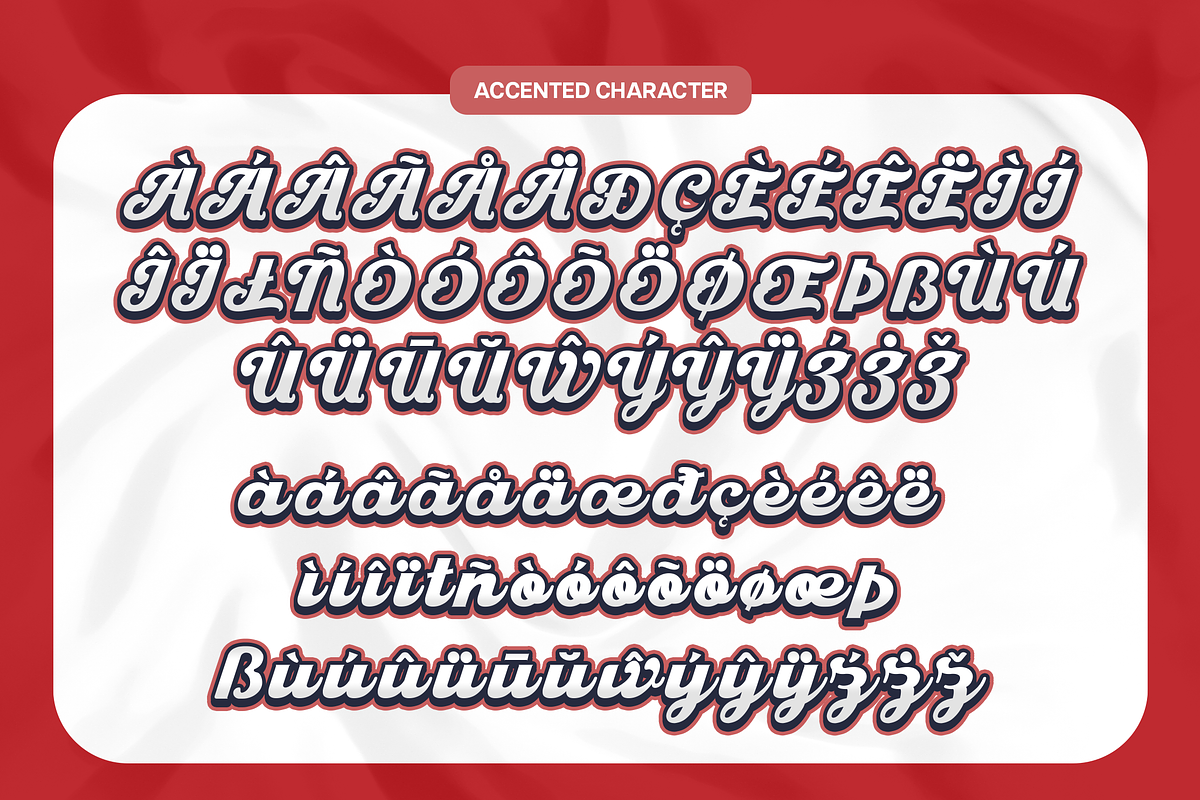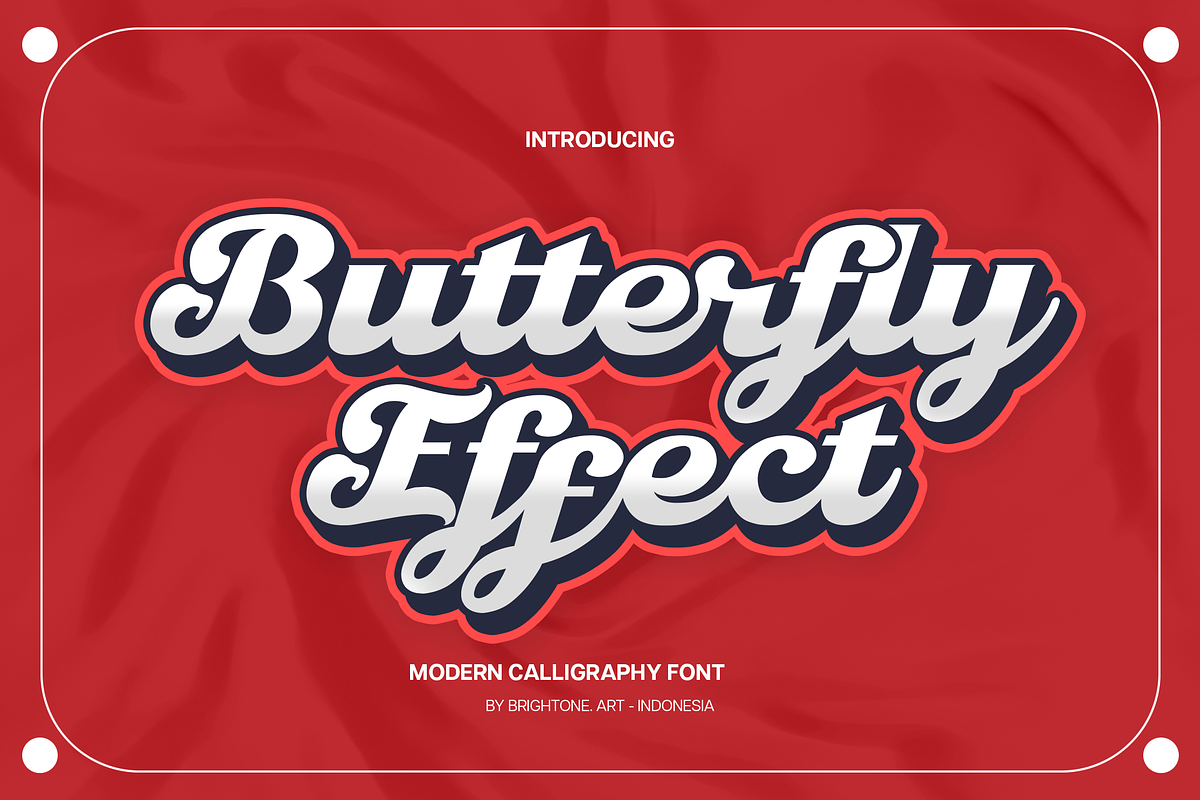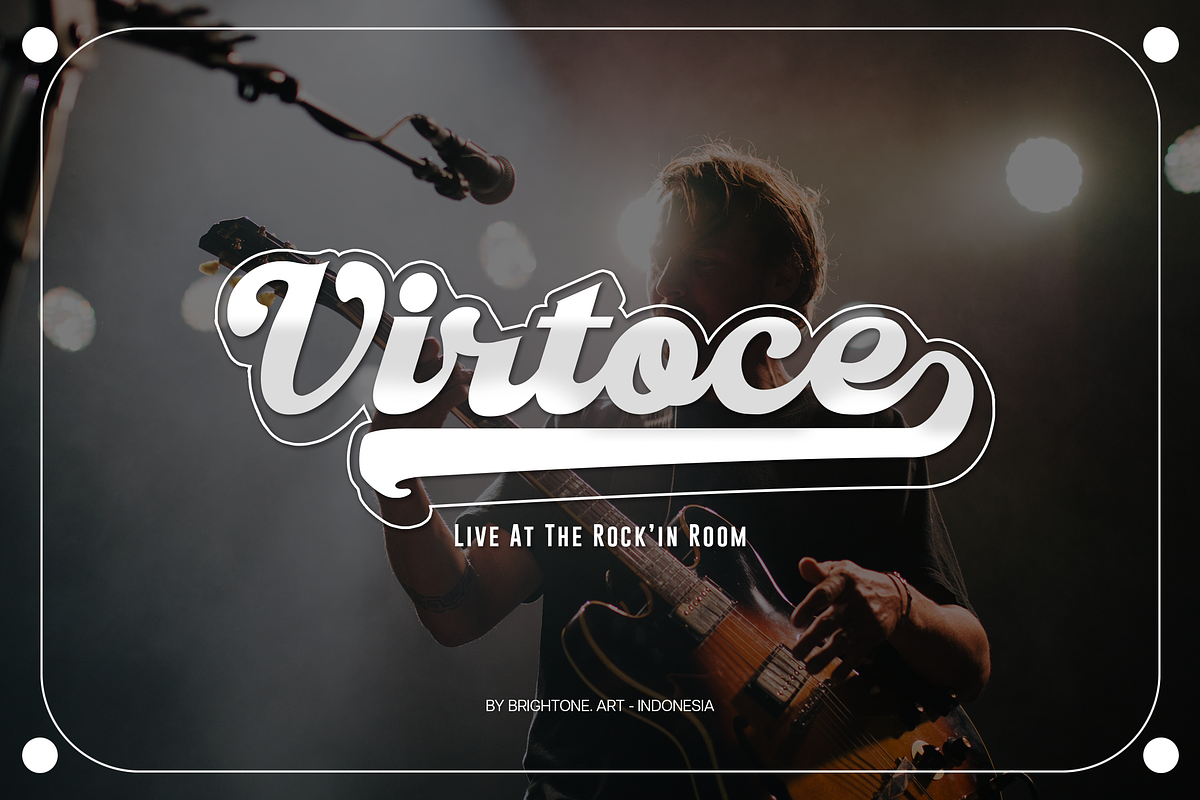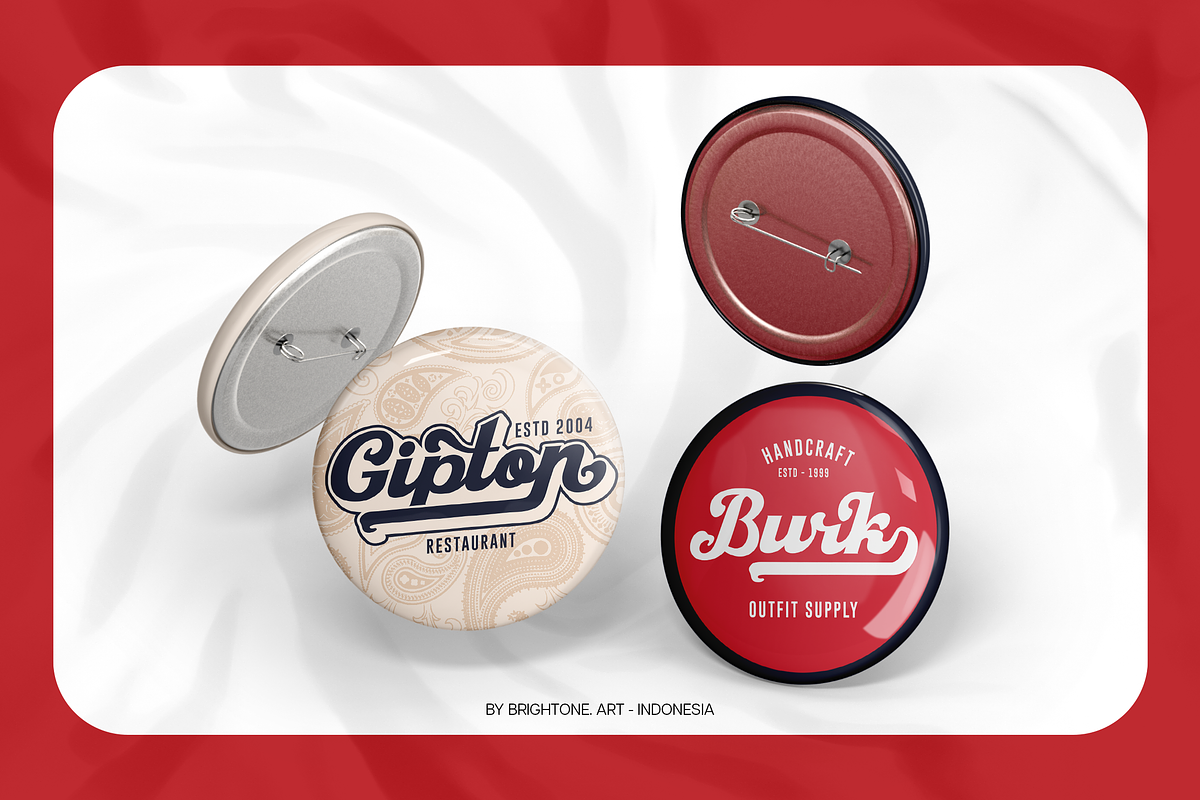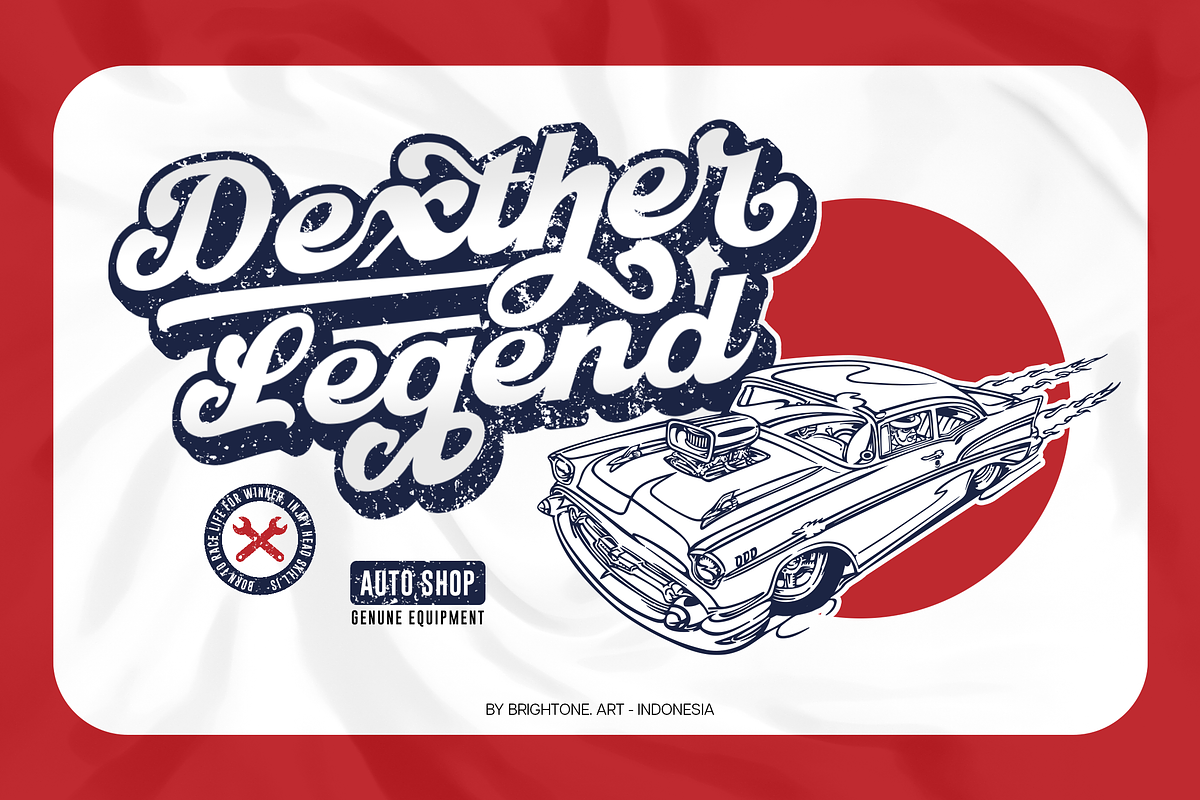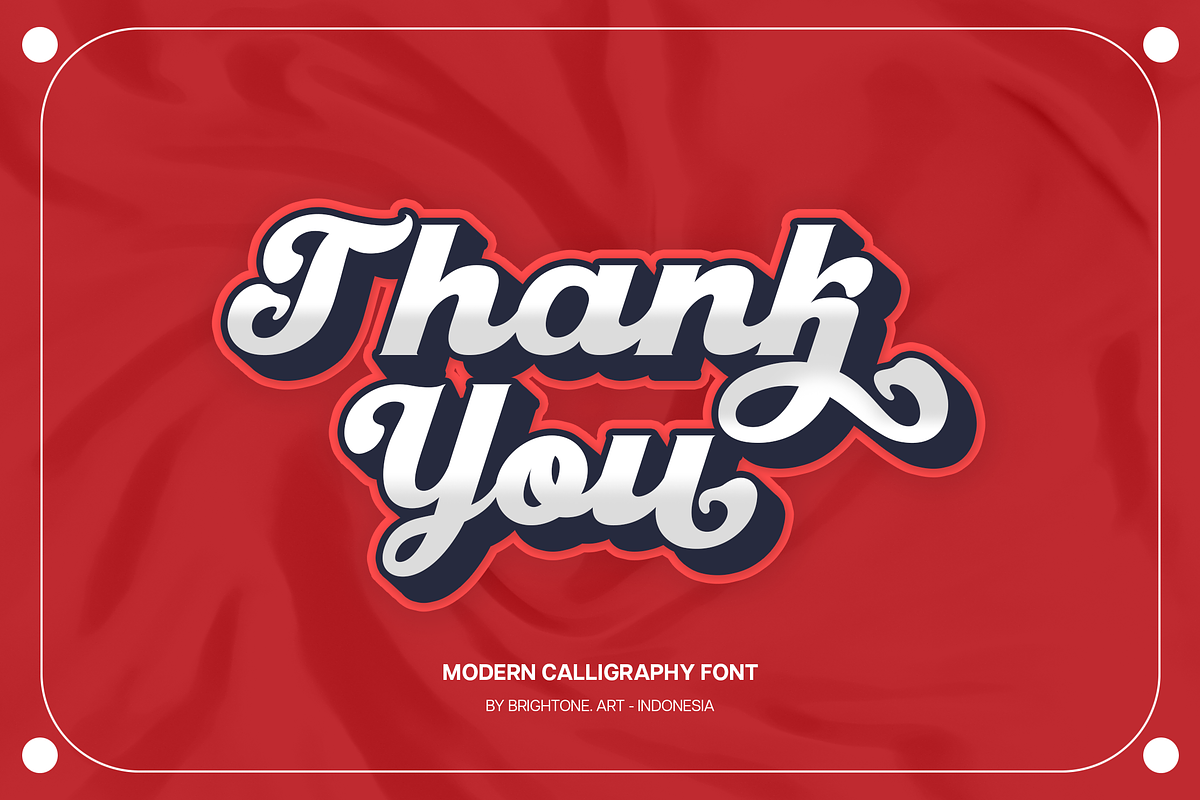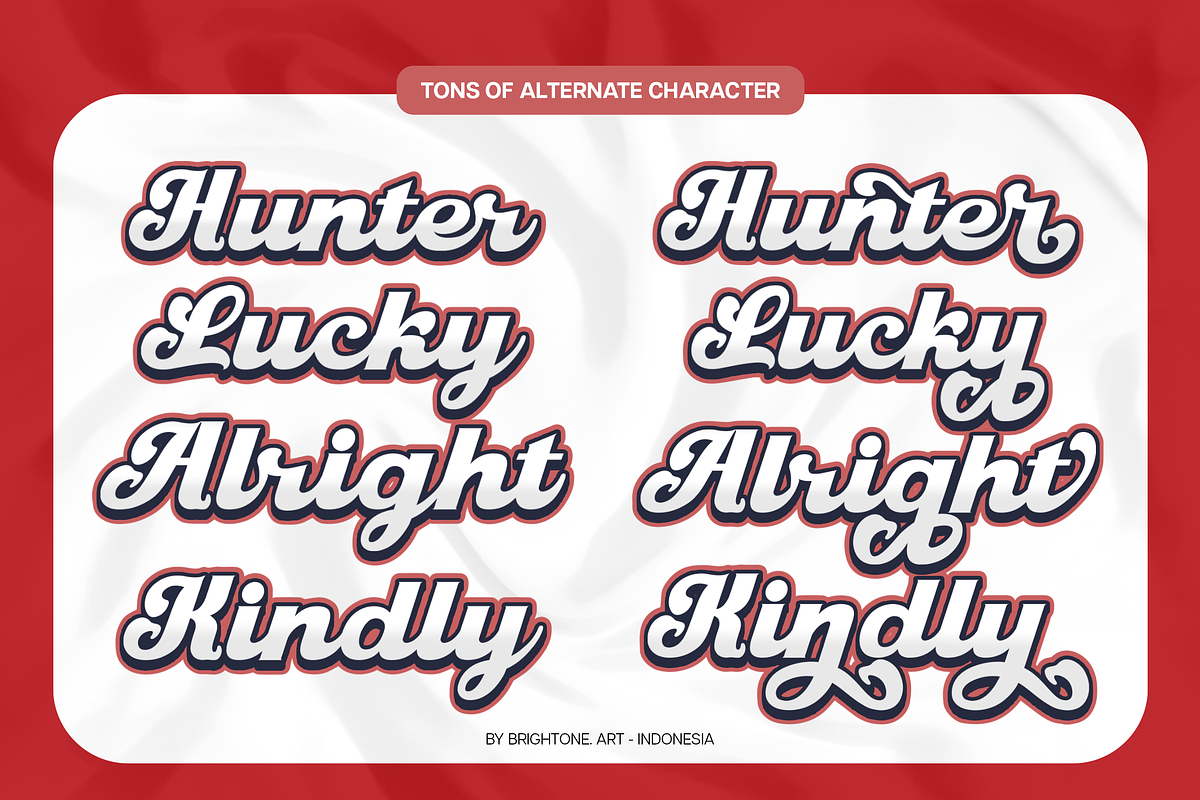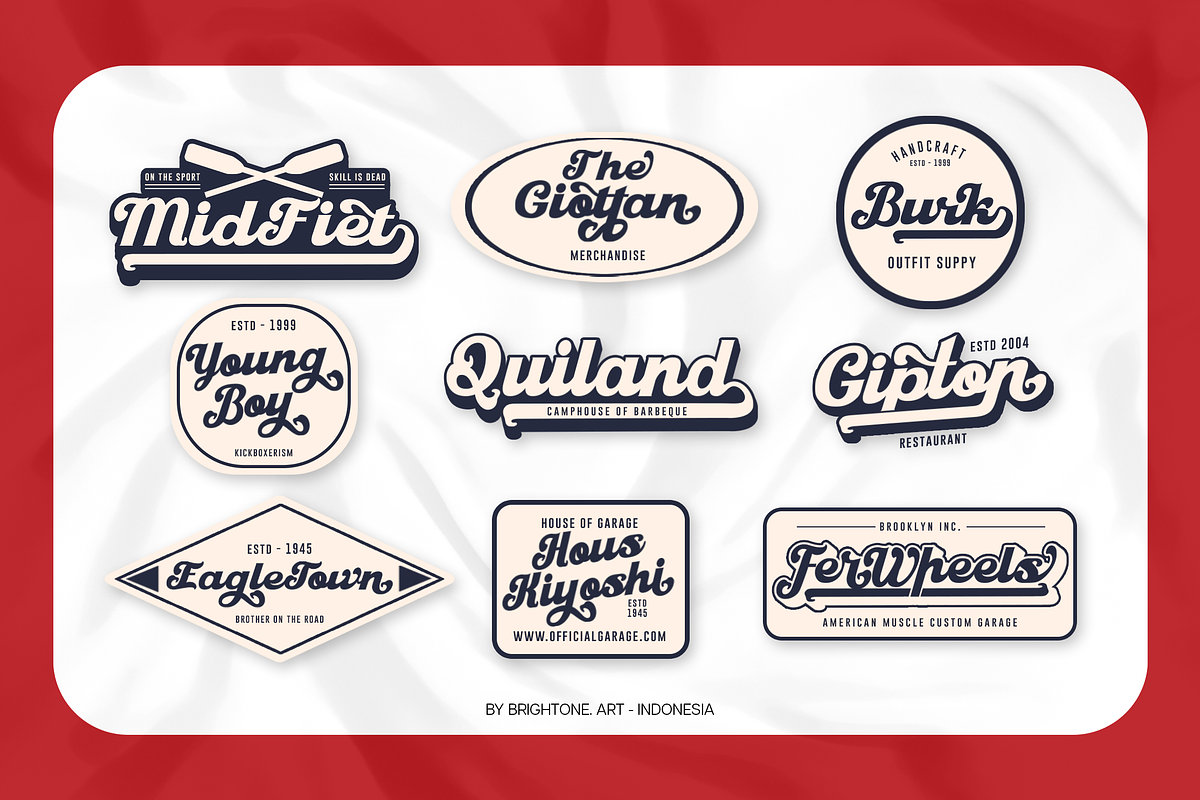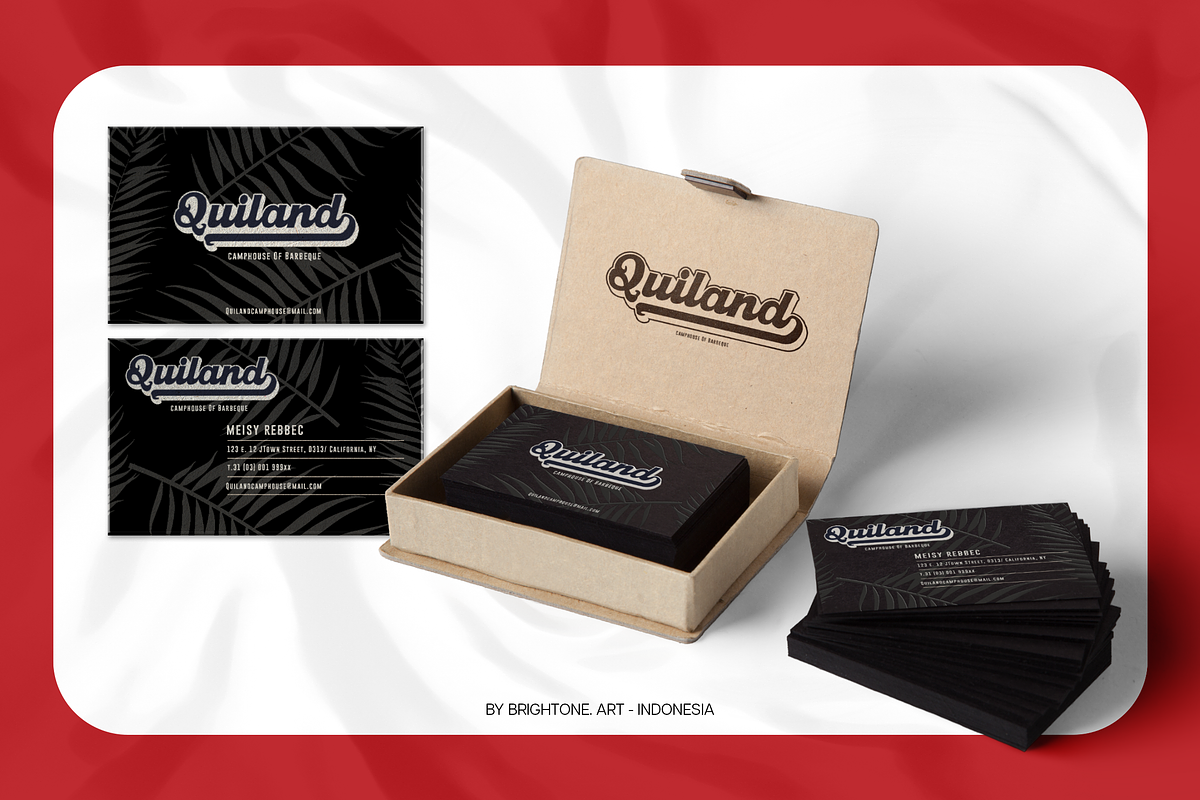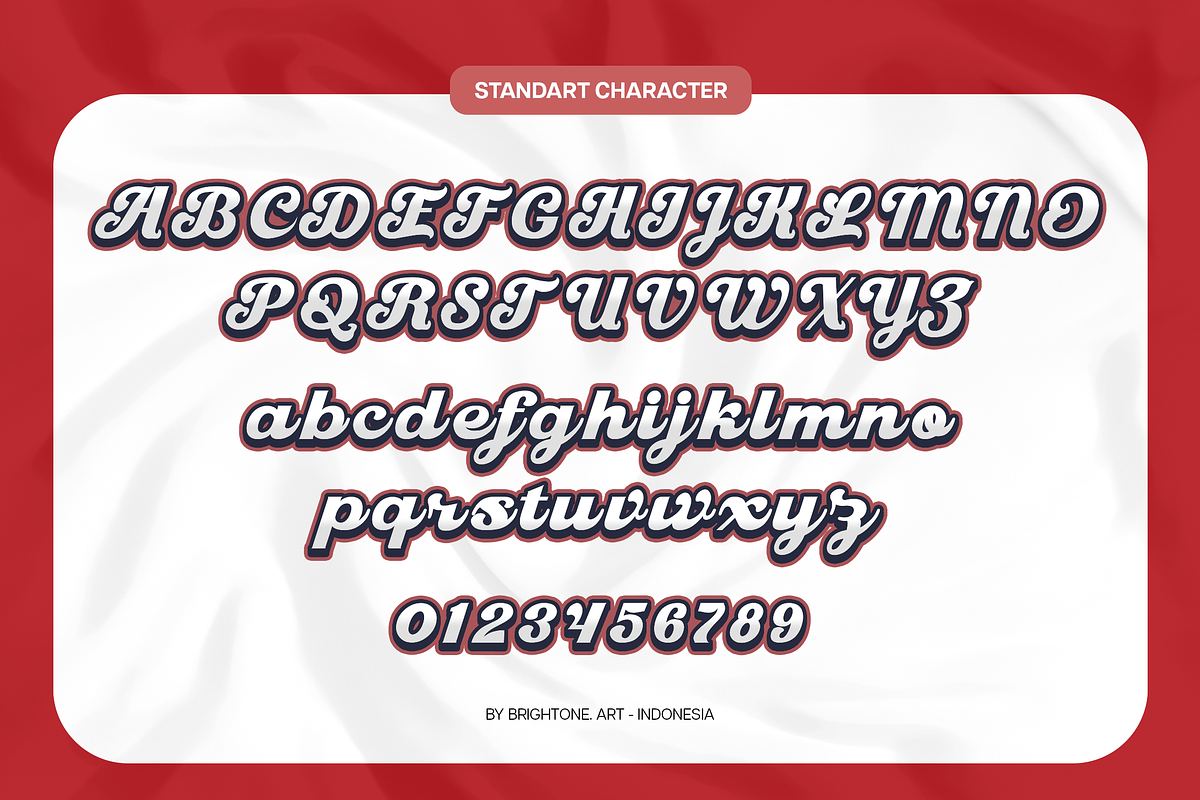
Butterfly Effect - New Calligraphy
BUTTERFLY EFFECT is modern calligraphy script font with bold shapes, these font includes:
- Uppercase and Lowercase Characters, Numbers and Punctuation.
- Ligatures and Alternates.
- Multilingual Support (Eastern, Central and Western European countries).
BUTTERFLY EFFECT font is suitable to use for all purpose for your logo lettering, logo, label, packaging, sticker, branding and many more.